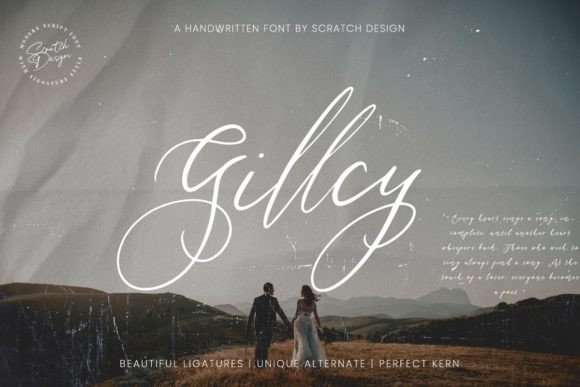
Introducing Gillcy Font, the enchanting script font that will cast a spell on your designs. With its meticulous craftsmanship and intricate details, Gillcy is a masterpiece that will elevate your creations to new heights.
Immerse yourself in the world of words, where Gillcy's elegant curves and graceful strokes dance across the page, captivating readers with its timeless charm. Perfect for scriptwriting, love letters, and any project that demands a touch of magic, Gillcy breathes life into your storytelling.
Whether you're a seasoned designer or a budding wordsmith, Gillcy is the perfect addition to your font arsenal. Its versatility knows no bounds, effortlessly complementing a wide range of styles and themes. From whimsical invitations to enchanting logos, Gillcy's allure will leave a lasting impression.
Indulge in the beauty of Gillcy Font and experience the transformative power of words. With its enchanting design and endless possibilities, Gillcy is the key to unlocking your imagination and captivating the hearts of your audience.